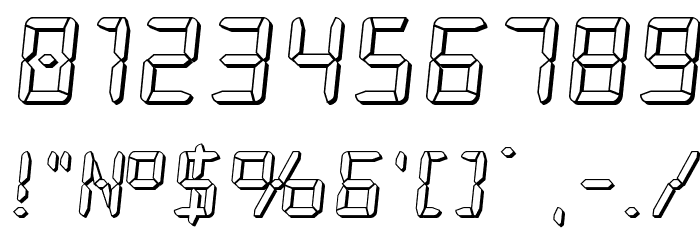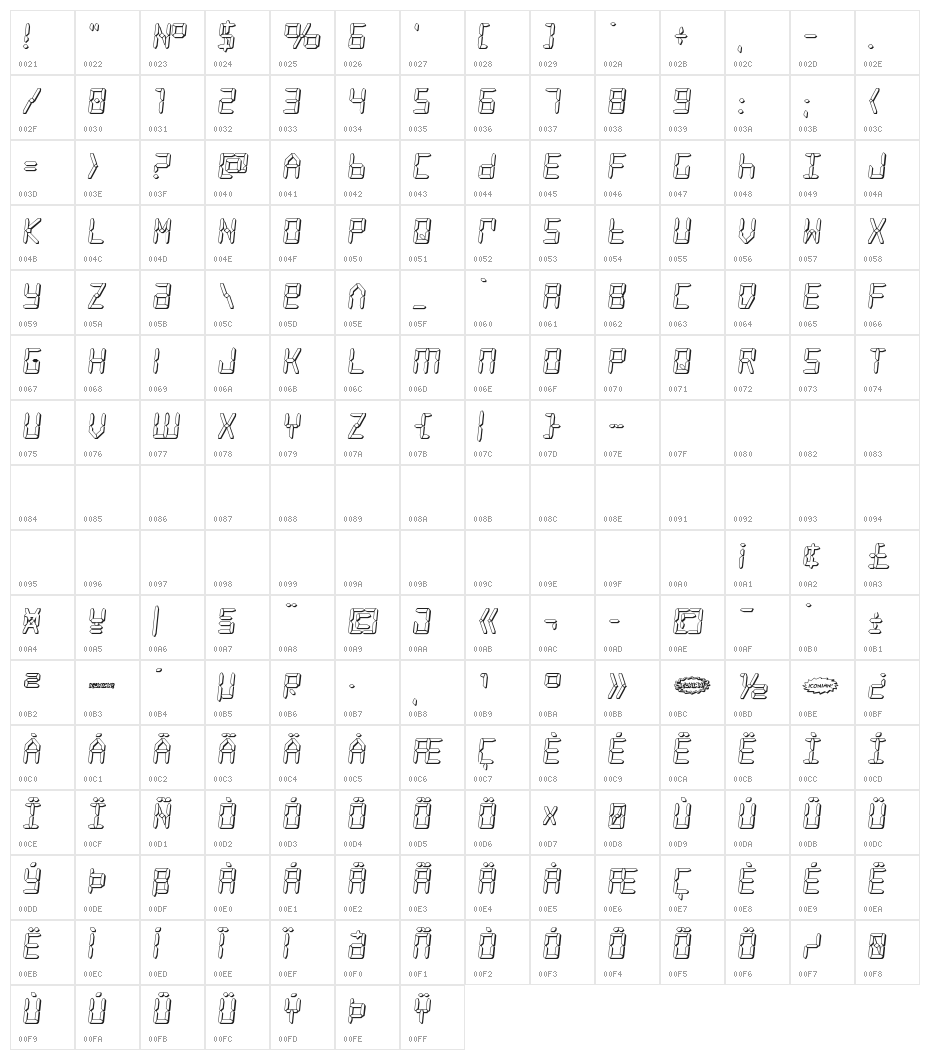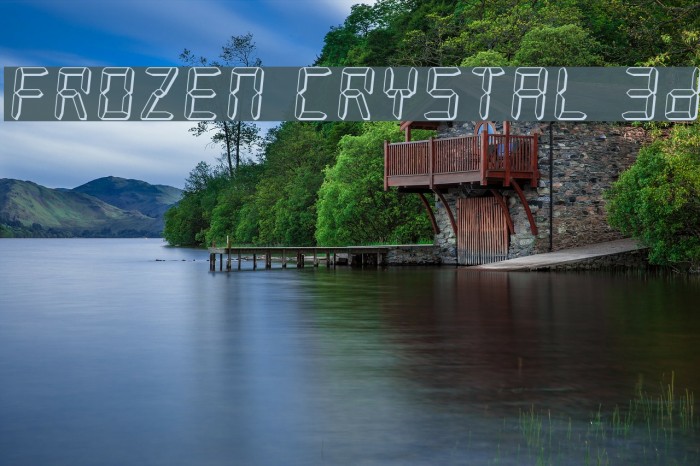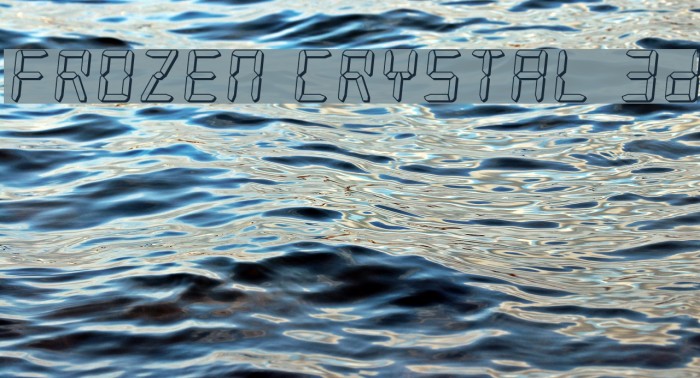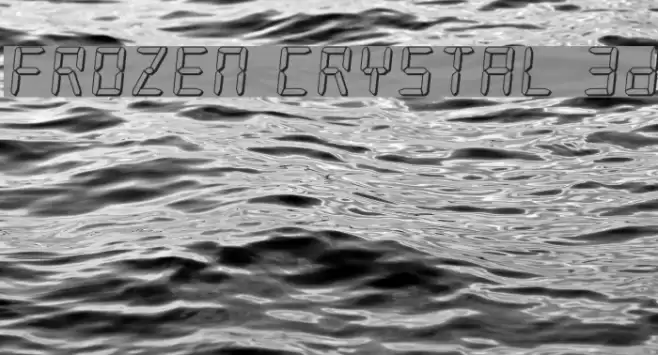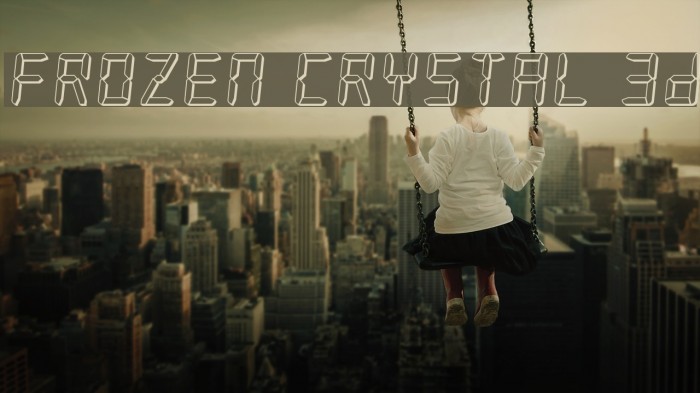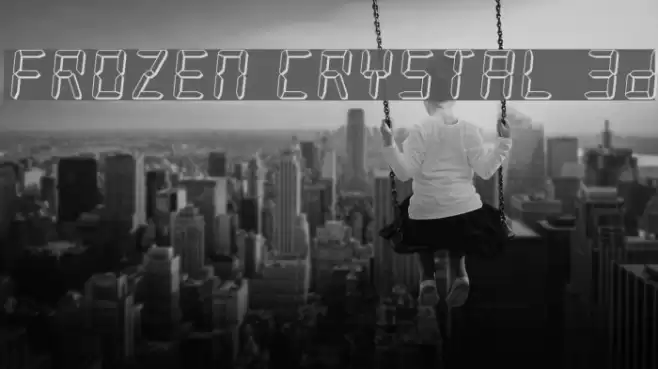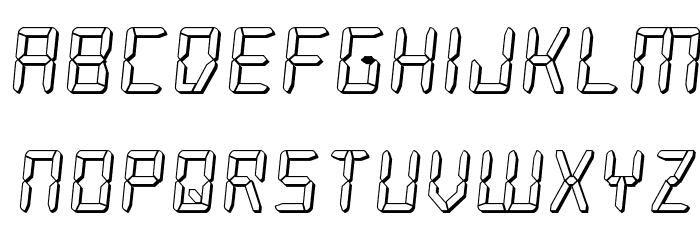
Frozen Crystal 3D Font
Frozen Crystal 3D Description
This font features a unique 3D crystal-like design, where each character appears as if carved from a block of ice. The geometric shapes and angular lines give it a futuristic and digital appearance, reminiscent of LED displays or digital clocks. The letters are constructed with a consistent stroke width, creating a uniform and cohesive look across all characters. The uppercase and lowercase letters maintain a similar style, with slight variations in size and shape. Numbers and special characters follow the same design principles, ensuring a harmonious overall appearance. This font's distinct style makes it stand out, offering a modern and edgy aesthetic.
| Overall Style | Futuristic, Digital |
| Proposed Projects | Ideal for digital displays, tech-themed projects, video game graphics, and futuristic branding. |